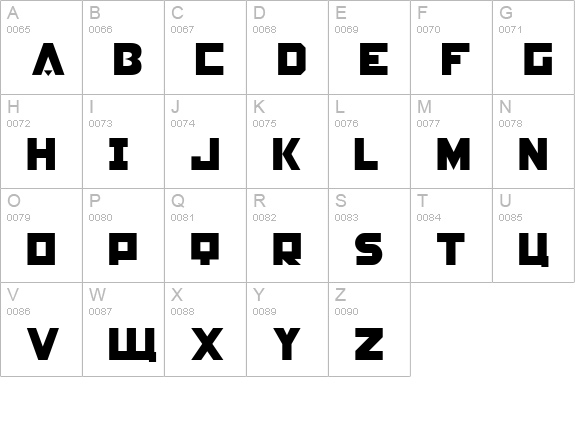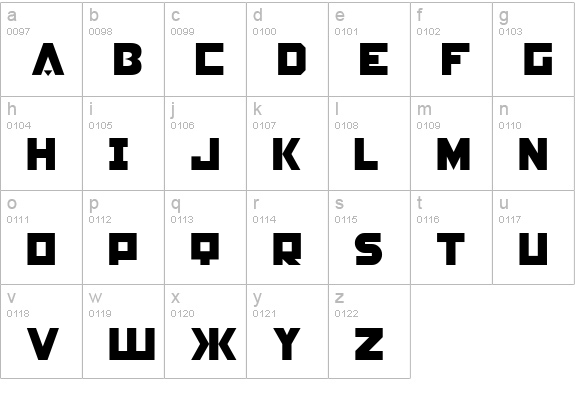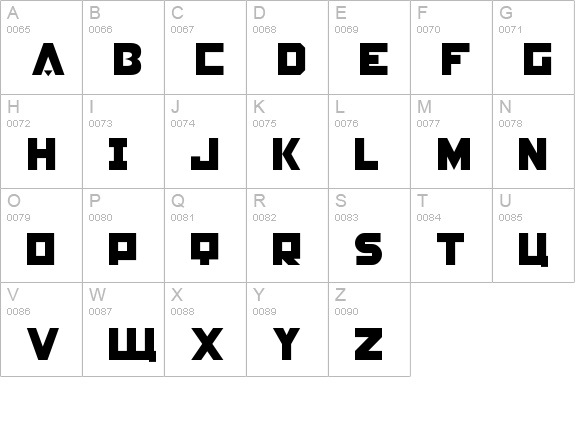
P22 Constructivist Square Font Details
P22 Constructivist Square font is a unique and eye-catching typeface that captures the essence of the Constructivist movement. Inspired by the geometric shapes and bold designs of the early 20th century, this font is perfect for creating impactful and dynamic designs. With its clean lines and precise angles, P22 Constructivist Square font exudes a sense of strength and modernity. The square shapes and symmetrical forms give it a sense of order and balance, making it ideal for conveying a sense of professionalism and sophistication. This font is not only visually stunning but also highly versatile. It can be used in a wide range of design projects, from logos and branding to posters and headlines. Its bold and attention-grabbing appearance ensures that your message will be noticed and remembered. And the best part? P22 Constructivist Square font is free! It is freely available to download at FontsMarket.com, allowing you to easily access and use this outstanding typeface for your creative endeavors. Whether you're a professional designer or an aspiring artist, this font is a must-have in your collection. So why wait? Take advantage of this opportunity to enhance your designs with the bold and captivating P22 Constructivist Square font. Download it now from FontsMarket.com and let your creativity soar to new heights.